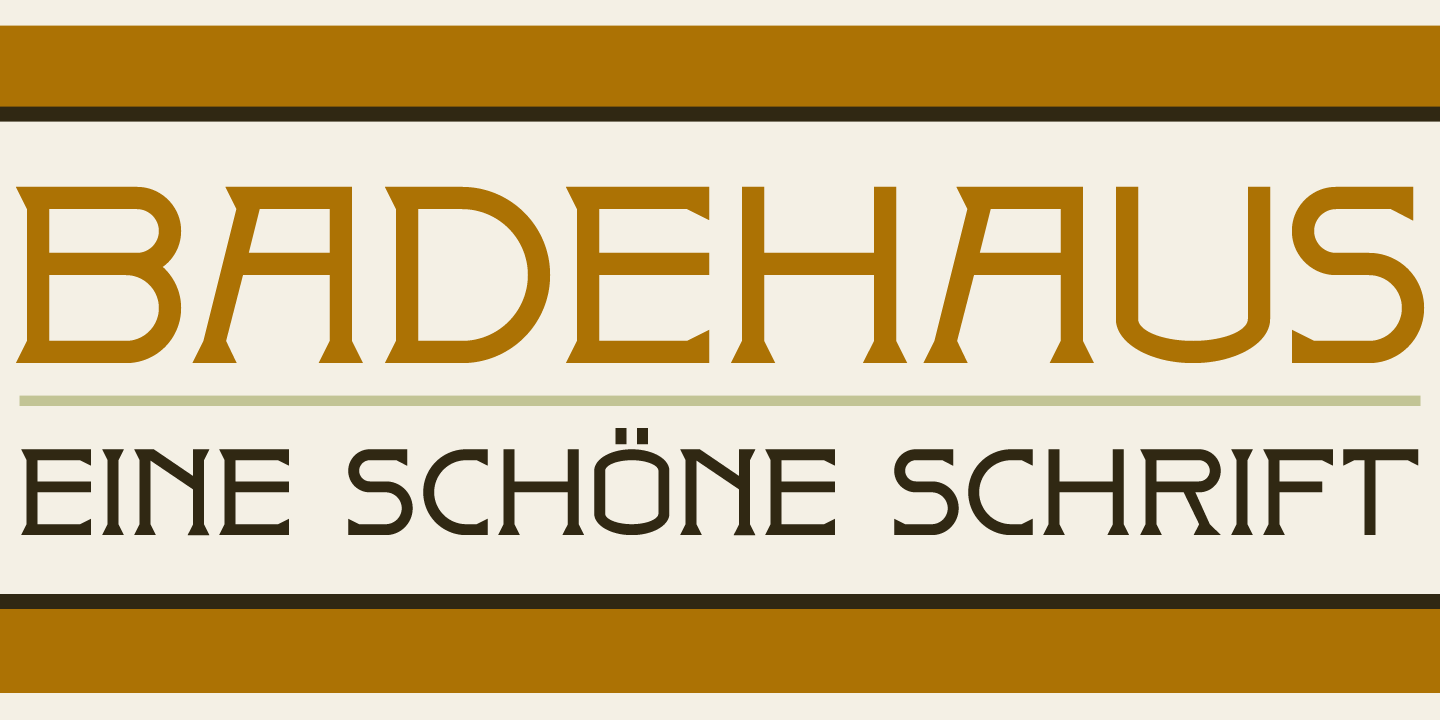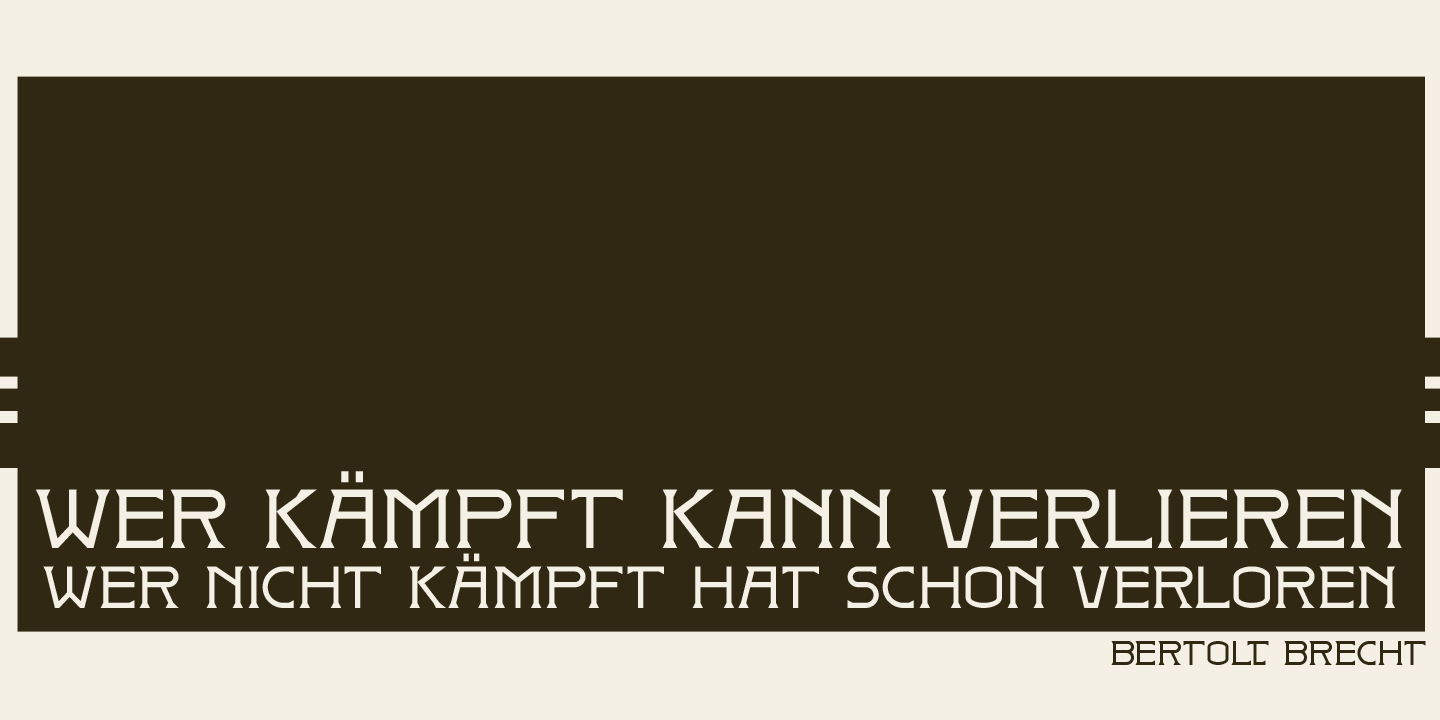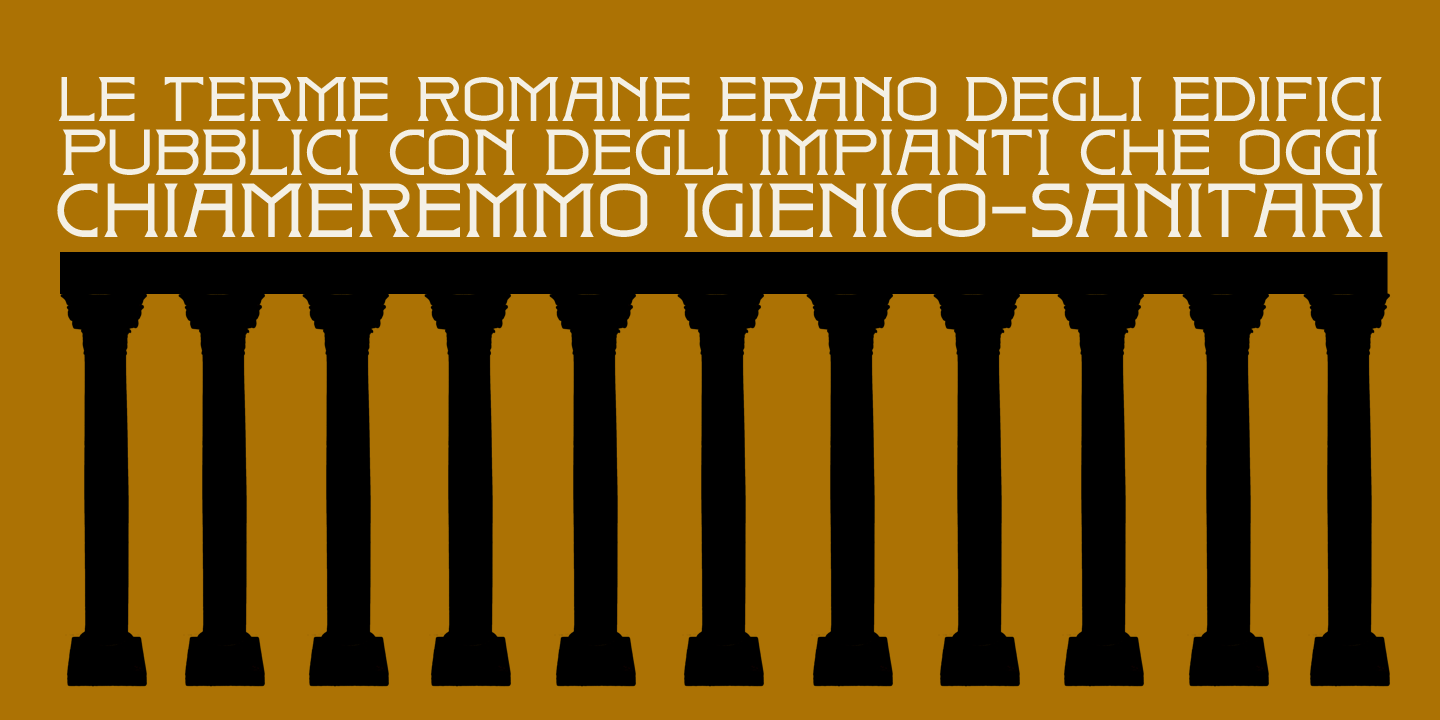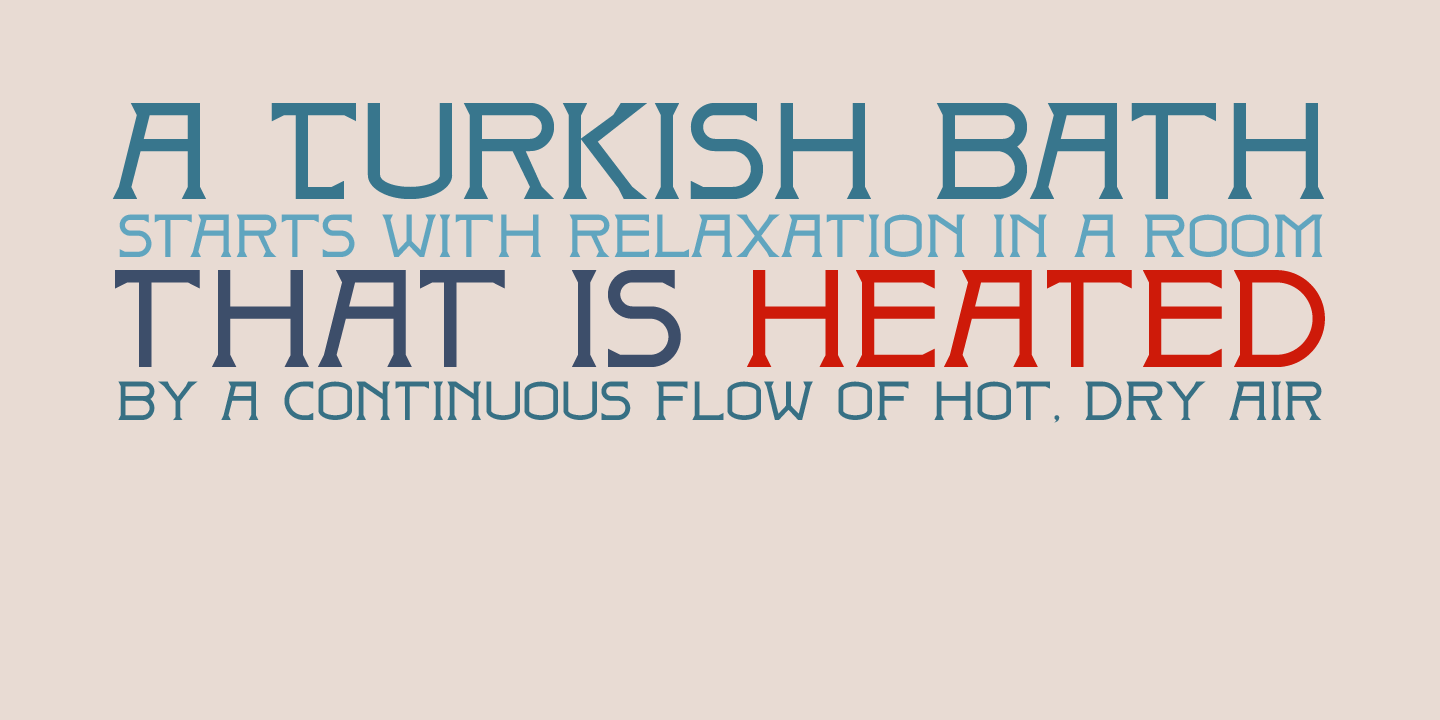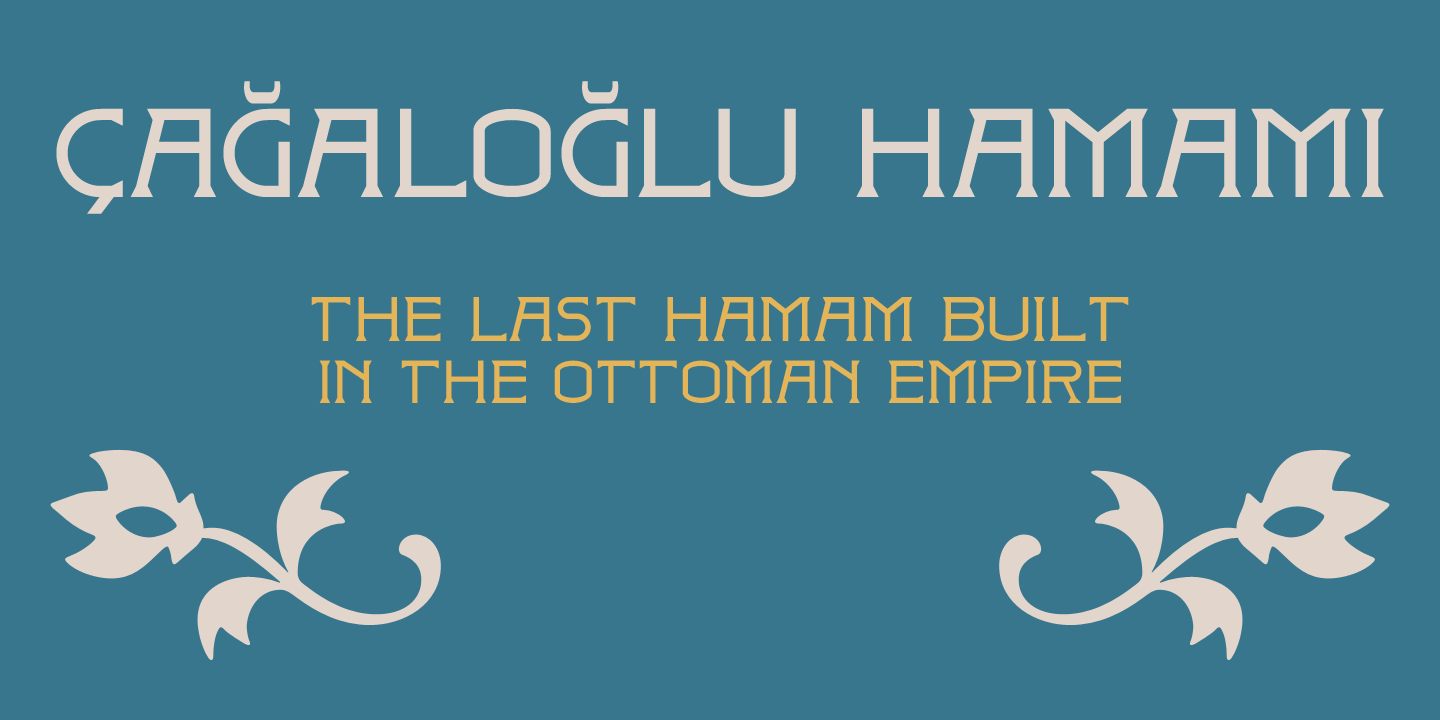
Badehaus
In the German city of Bad Neuenahr you can visit a spa called Thermal Badehaus. This beautiful art deco building has an even more beautiful art deco lettering covering its facade. I had to work with only a couple of glyphs (?Thermal Badehaus? to be exact) and tried to capture their beauty in the remaining glyphs. The result is a font called Badehaus (Bath House in German). It is a bold, all caps typeface, with some unique glyphs.